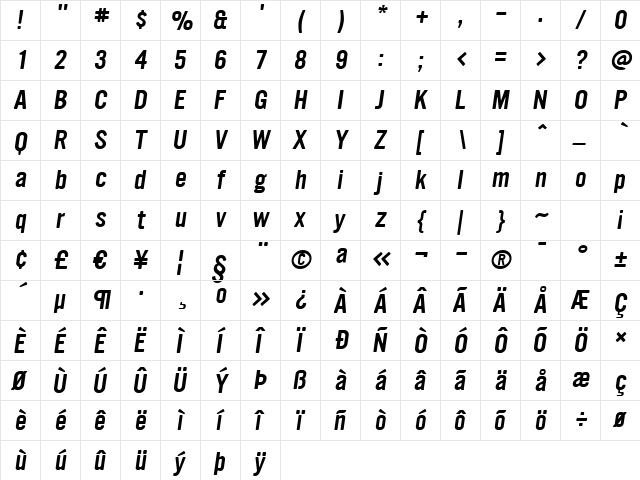
Ultramagnetic Oblique
| Foundry | YouWorkForThem |
| Designer | Michael Cina |
Design Context for Ultramagnetic Typeface
Ultramagnetic is a composed and adaptable typeface that performs quietly and consistently across a wide range of design contexts. Its italic angle brings a sense of urgency and motion to the letterforms.